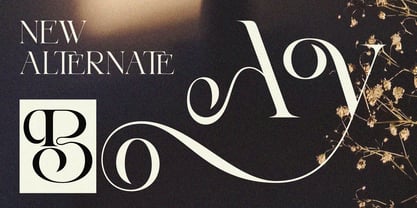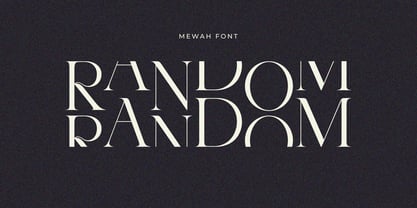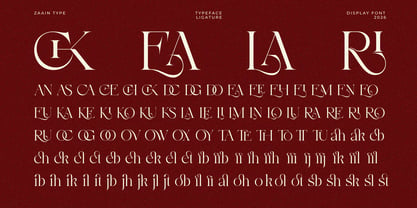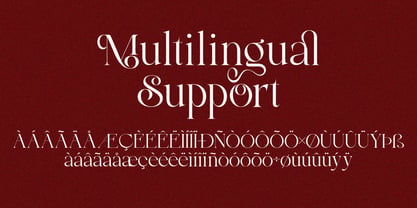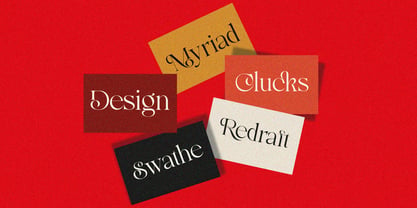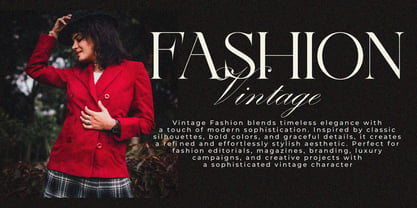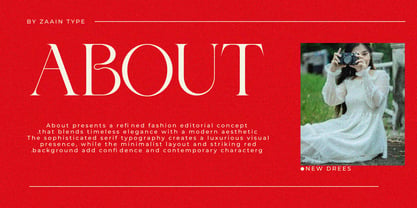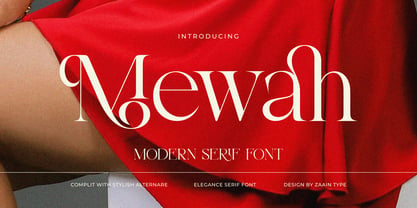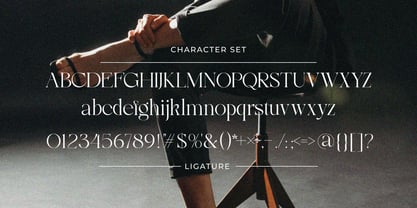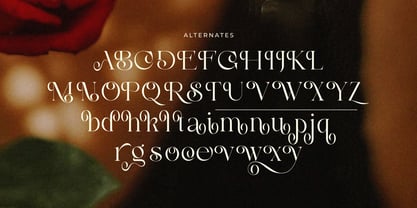
Mewah
by Zaain Type
The Mewah Font Family was designed by Ju Naen and published by Zaain Type. Mewah contains 2 styles and family package options. More about this family
Mewah is a sophisticated serif typeface designed to bring elegance, luxury, and timeless character to every design. Featuring refined proportions, graceful curves, and a beautiful contrast between thick and thin strokes, Mewah creates a distinctive and polished visual impression.
Its elegant yet versatile style makes it an excellent choice for fashion branding, luxury logos, editorial layouts, beauty and cosmetics packaging, perfume labels, wedding invitations, magazine covers, and premium product designs. Whether used for a bold headline or a refined brand identity, Mewah adds a touch of class and sophistication that makes every word feel more memorable
Designers: Ju Naen
Foundry: Zaain Type